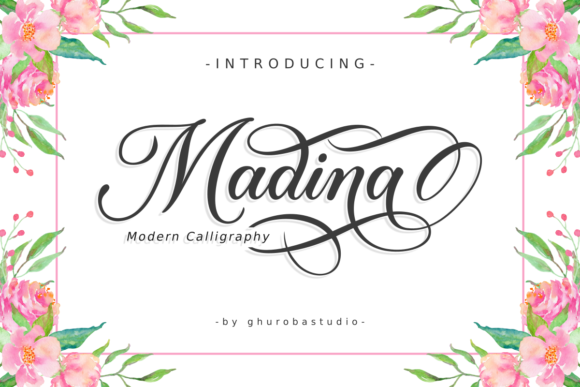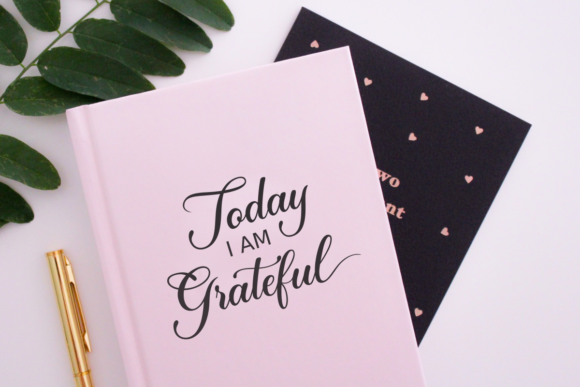
Madina Font
Madina feels both magical and elegant. It looks stunning on wedding invitations, thank you cards, quotes, greeting cards, logos, business cards and every other design which needs a handwritten touch.
This font is PUA encoded which means you can access all of the glyphs and swashes with ease! It features a varying baseline, smooth lines, gorgeous glyphs and stunning alternates.